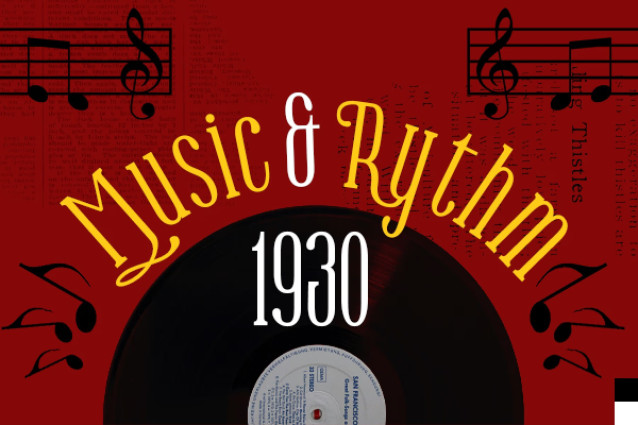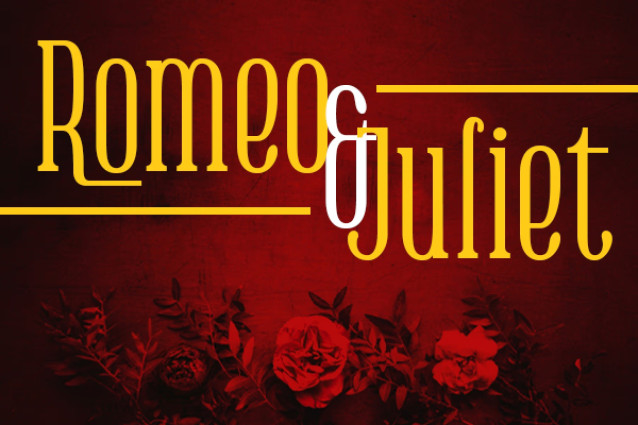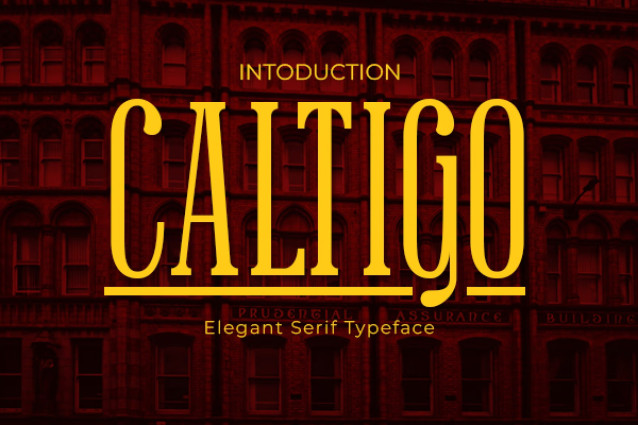
Caltigo Font
Caltigo Font, an elegant and impactful condensed serif typeface designed for display purposes. With its distinct vintage style, Caltigo brings a touch of classic sophistication to your headlines, branding, and editorial projects. Crafted with precision, this unique font offers a powerful visual presence in its single weight style, ensuring focused elegance and immediate recognition. Caltigo is perfect for making a bold statement with refined character.